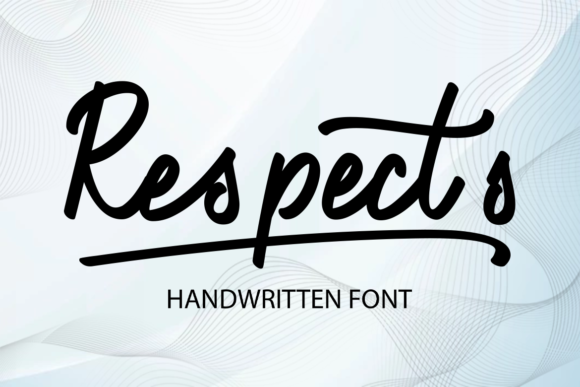
Welcome to the world of Respects, a captivating handwritten font family that exudes sweetness, cuteness, and a touch of playfulness. Crafted by the skilled hands of WinType, Respects is the perfect companion for your creative endeavors, adding a touch of charm and individuality to your designs.
With its delicate strokes and flowing characters, Respects is designed to evoke a sense of joy and lightheartedness. This remarkable font will elevate your quotes, notes, greeting cards, packaging, branding, and more, taking your designs to a whole new level.
Step into a world of endless creative possibilities with Respects. Its versatility knows no bounds, making it the ideal choice for a wide range of projects. Whether you're creating a whimsical invitation, designing a stylish logo, or adding a personal touch to your social media posts, Respects will effortlessly transform your ideas into eye-catching masterpieces.
Let Respects be your muse, igniting your imagination and inspiring you to create designs that resonate with your audience. Its charming personality will add a touch of magic to your projects, capturing hearts and leaving a lasting impression.
So, embrace the allure of Respects and embark on a creative journey like no other. Let its enchanting characters dance across your designs, captivating your audience and leaving them in awe of your artistic prowess. Unleash your creativity and make your mark on the world with Respects, the font that speaks volumes.